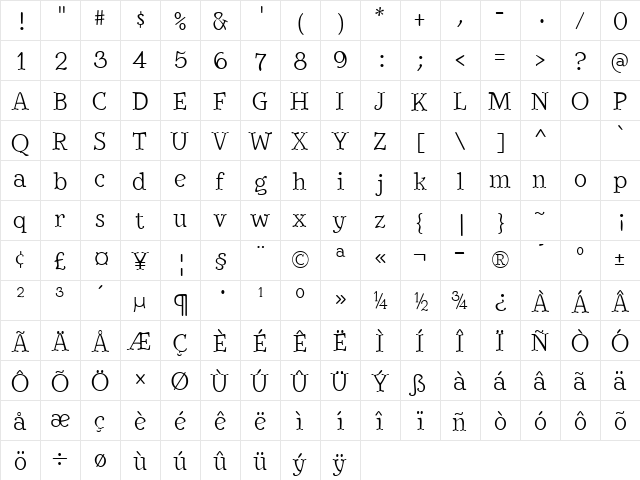
BetterIngriana Regular
Design Context for BetterIngriana Typeface
BetterIngriana takes a measured approach to typography — its balanced proportions and neutral character make it a reliable workhorse for both digital and print work.